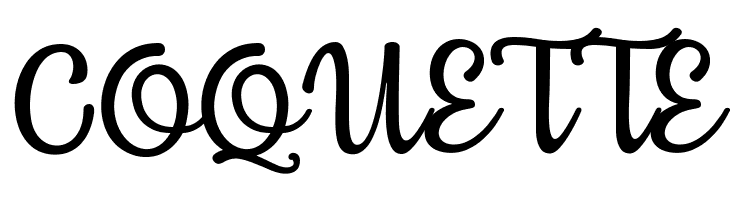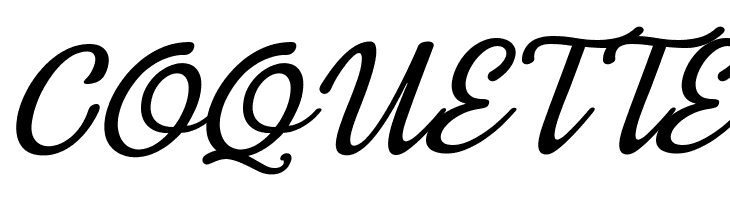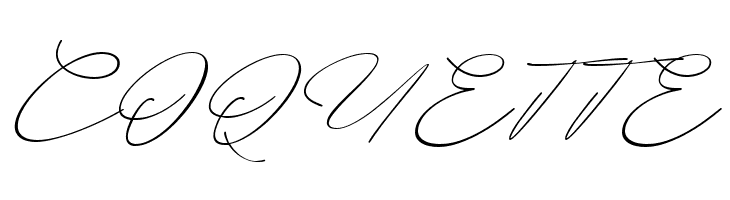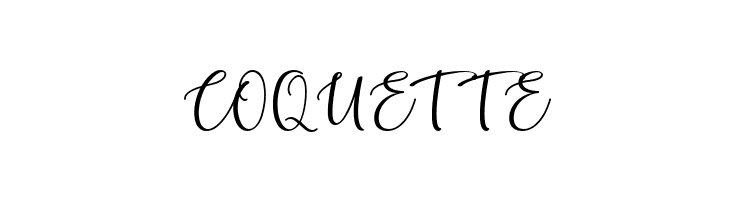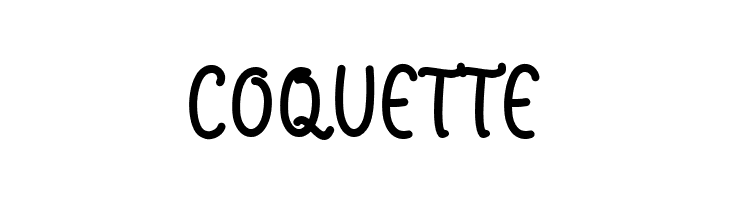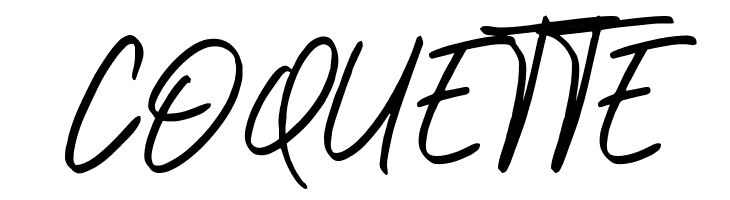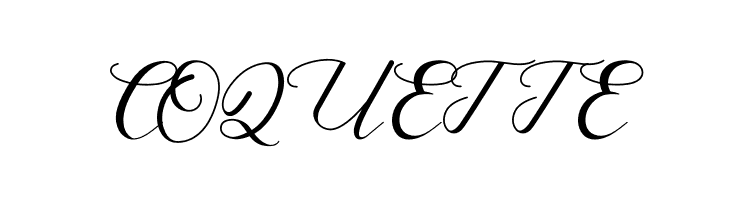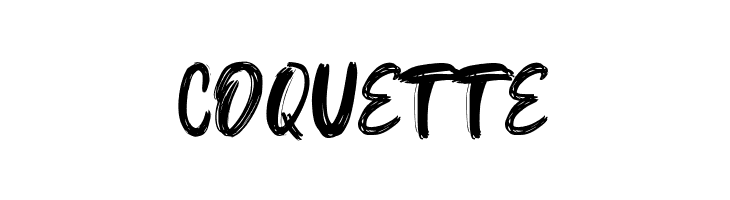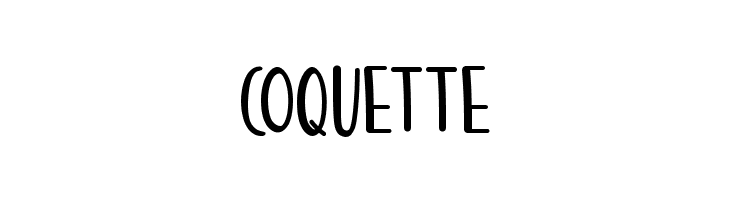
A bold, brush-style italic font with dynamic strokes and a handwritten feel.
A bold, expressive handwritten font with dynamic, brush-like strokes.
An elegant script font with flowing, interconnected letters and a classic calligraphic style.
A graceful and flowing script font with elegant, cursive strokes.
A playful, handwritten font with smooth, rounded edges and a whimsical style.
A playful, casual handwritten font with smooth, rounded edges.
A dynamic, cursive script font with a handwritten feel.
A graceful script font with flowing, cursive lines and elegant flourishes.